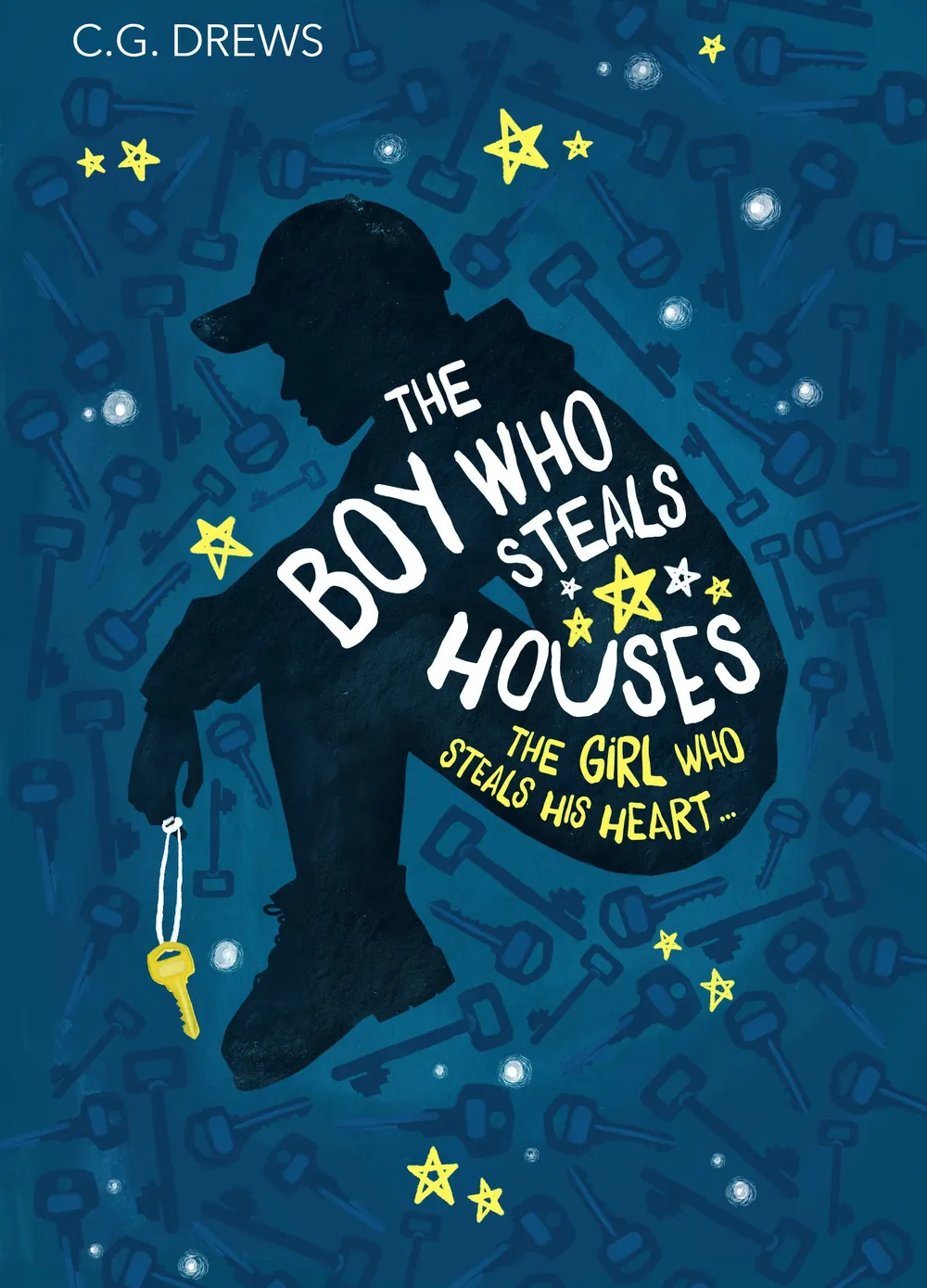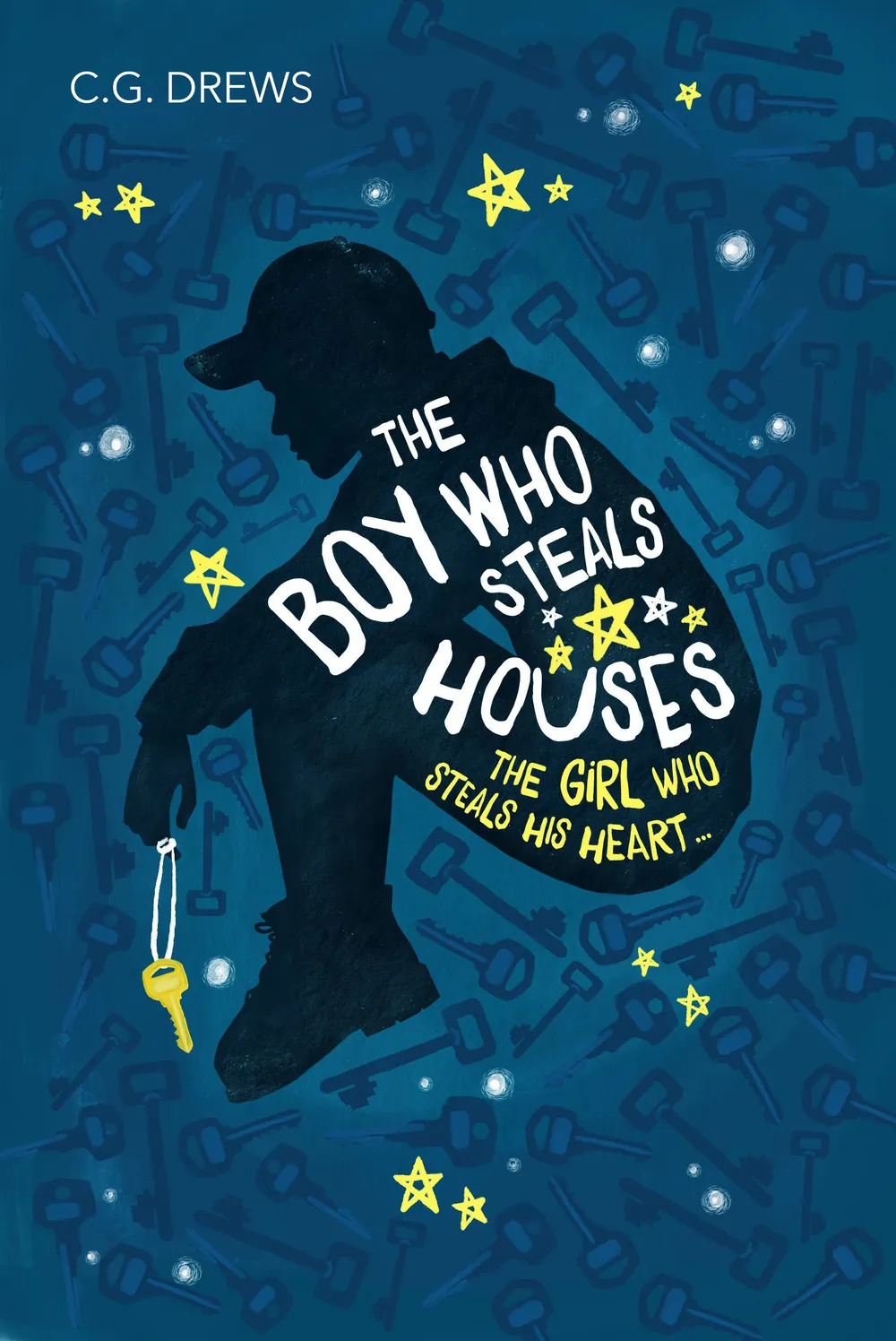
Fonts in Use: Daft Brush
The Boy Who Steals Houses
Daft Brush in use on the cover of The Boy Who Steals Houses, by C.G. Drews, published by Orchard Books, an imprint of Hachette Children’s Group.
Book cover design by Thy Bui.
Daft Brush font has many alternates, for this nice hand-lettered feel.